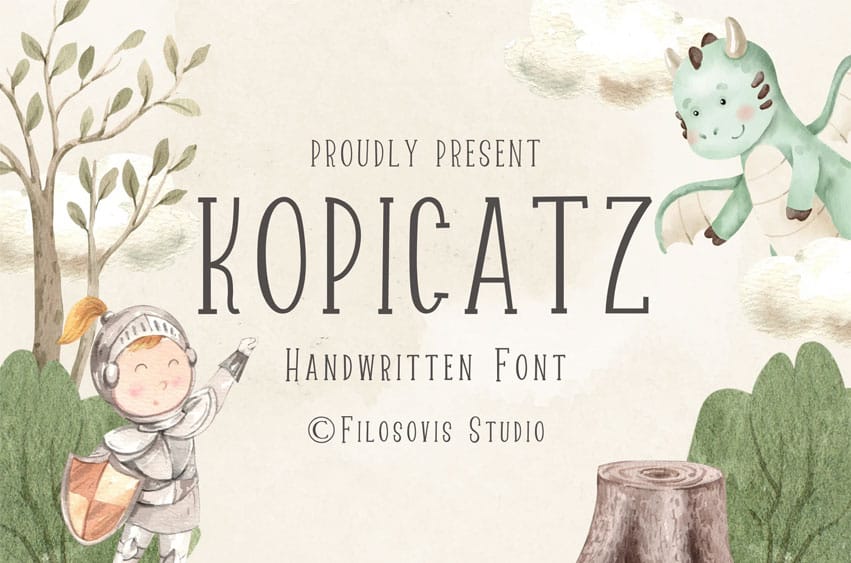
Kopicatz Font For your creative project, use the Kopicatz-themed handwritten font. Handwritten font script is appropriate for every kind of design you produce, including greeting cards, posters, logos, and branding.